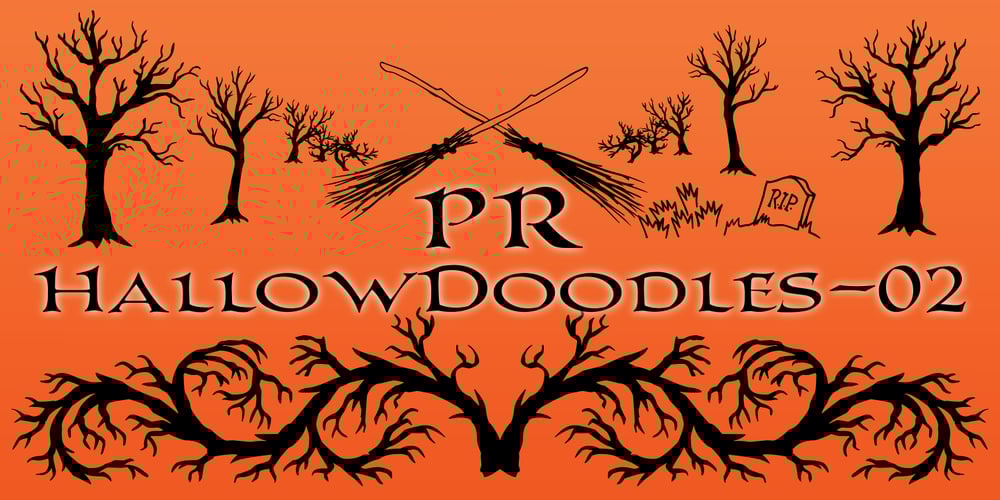
PR Hallow Doodles 02 Font Family was designed by Peter Rempel and published by PR Fonts. PR Hallow Doodles 02 contains 1 styles and family package options. This font is a collection of ornaments related to Halloween, There are a variety of cobwebs, dead trees, witch’s brooms and skulls. Combines well with: PR Bramble Wood 1, PR Bramble Wood 2, PR Hallow Doodles 01, PR Cauldron, PR Swirlies 01, PR Swirlies 05